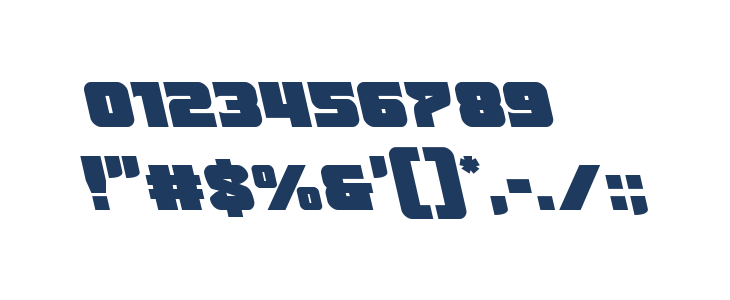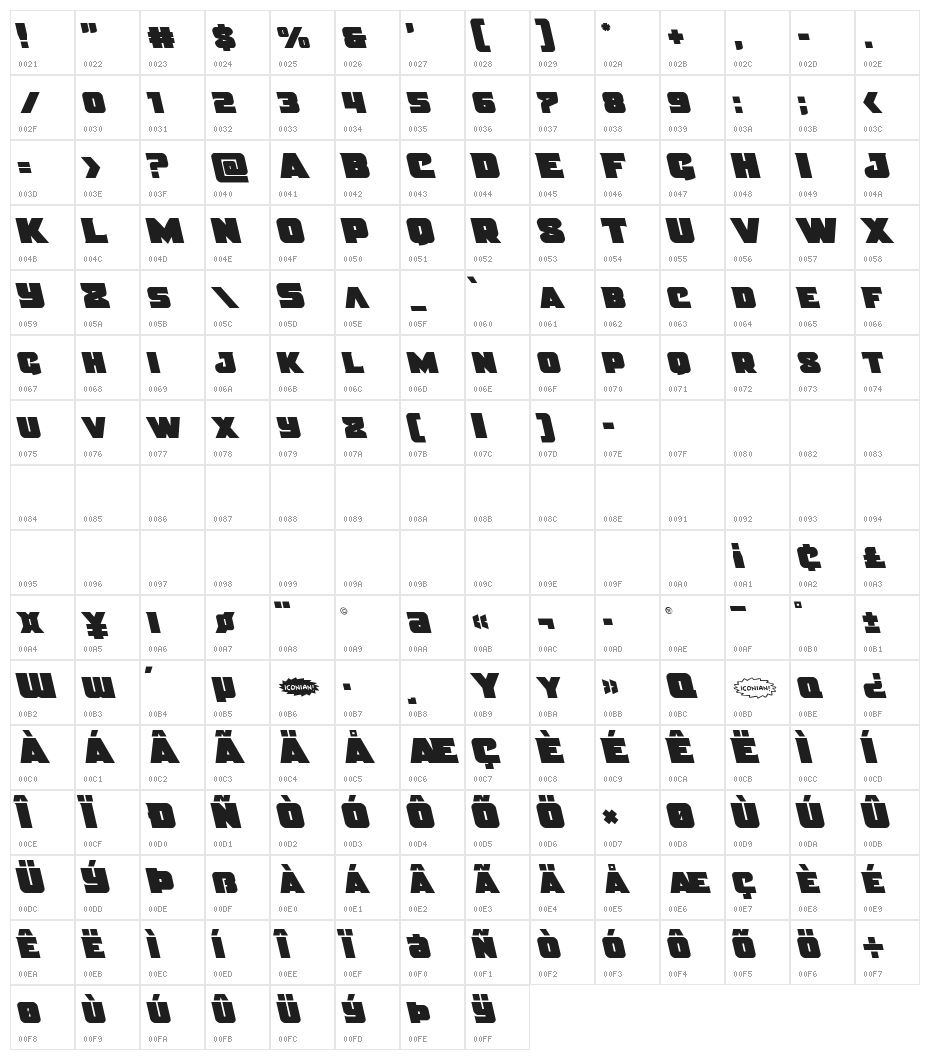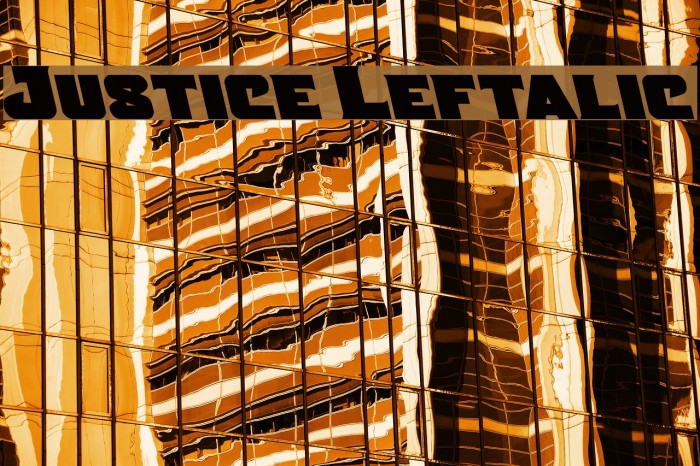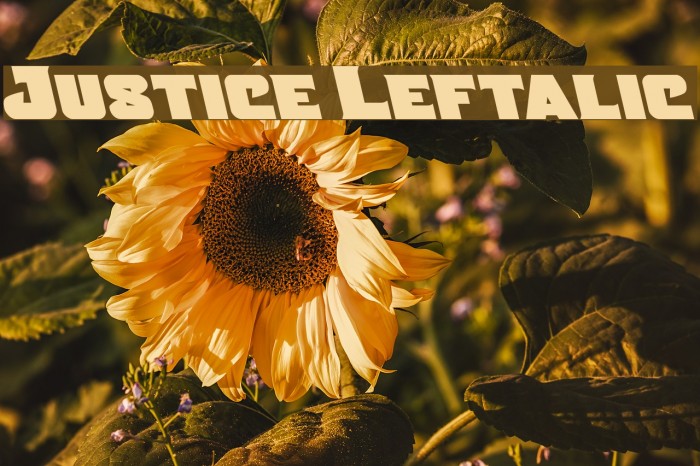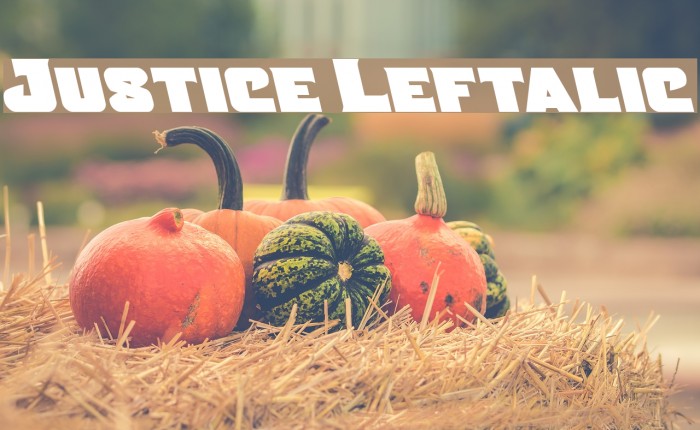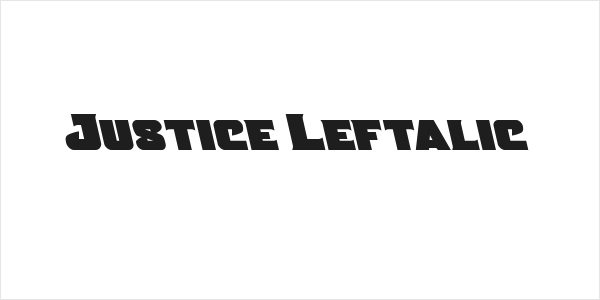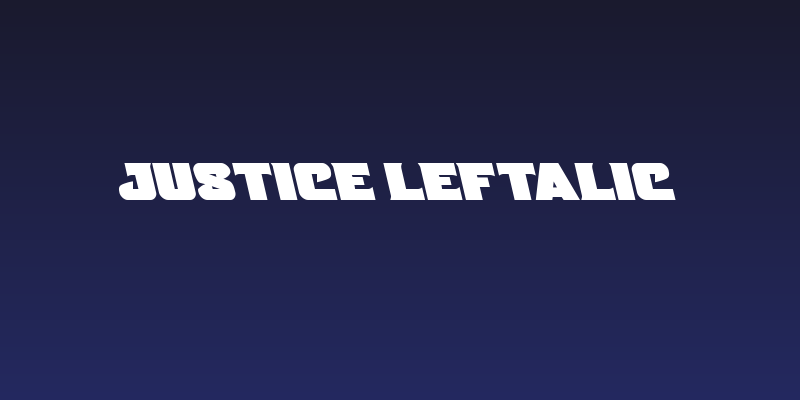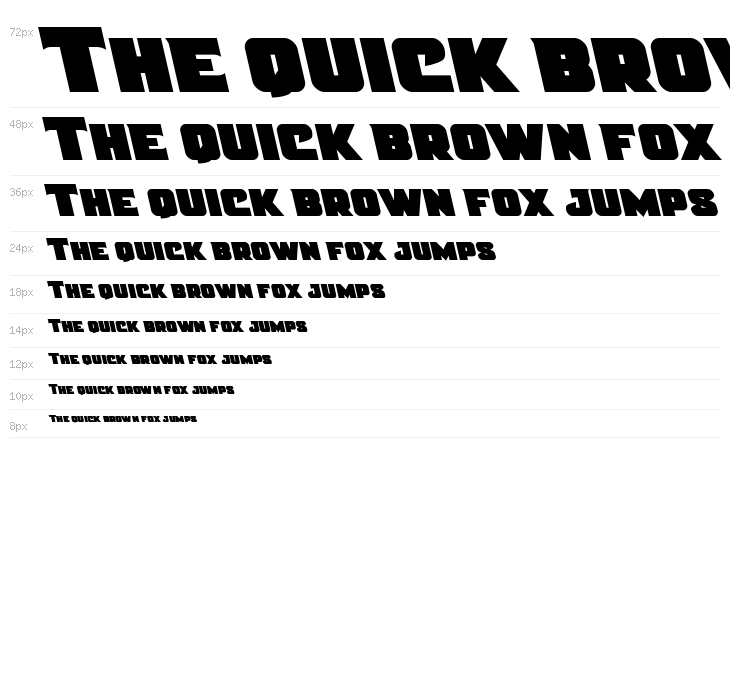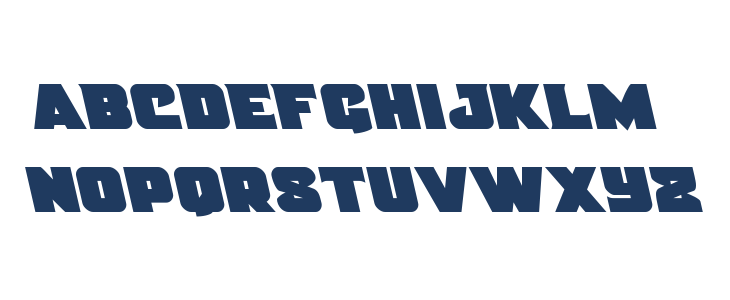
Justice Leftalic Font
Justice Leftalic Description
This bold and dynamic font features a strong, angular design with a leftward slant, giving it a sense of motion and energy. The characters are thick and blocky, with sharp edges and a slightly condensed appearance. The uppercase letters are particularly striking, with a uniform height and width that creates a cohesive look. The numerals and special characters maintain the same boldness and angularity, ensuring consistency across all glyphs. This font's distinctive style makes it ideal for attention-grabbing designs.